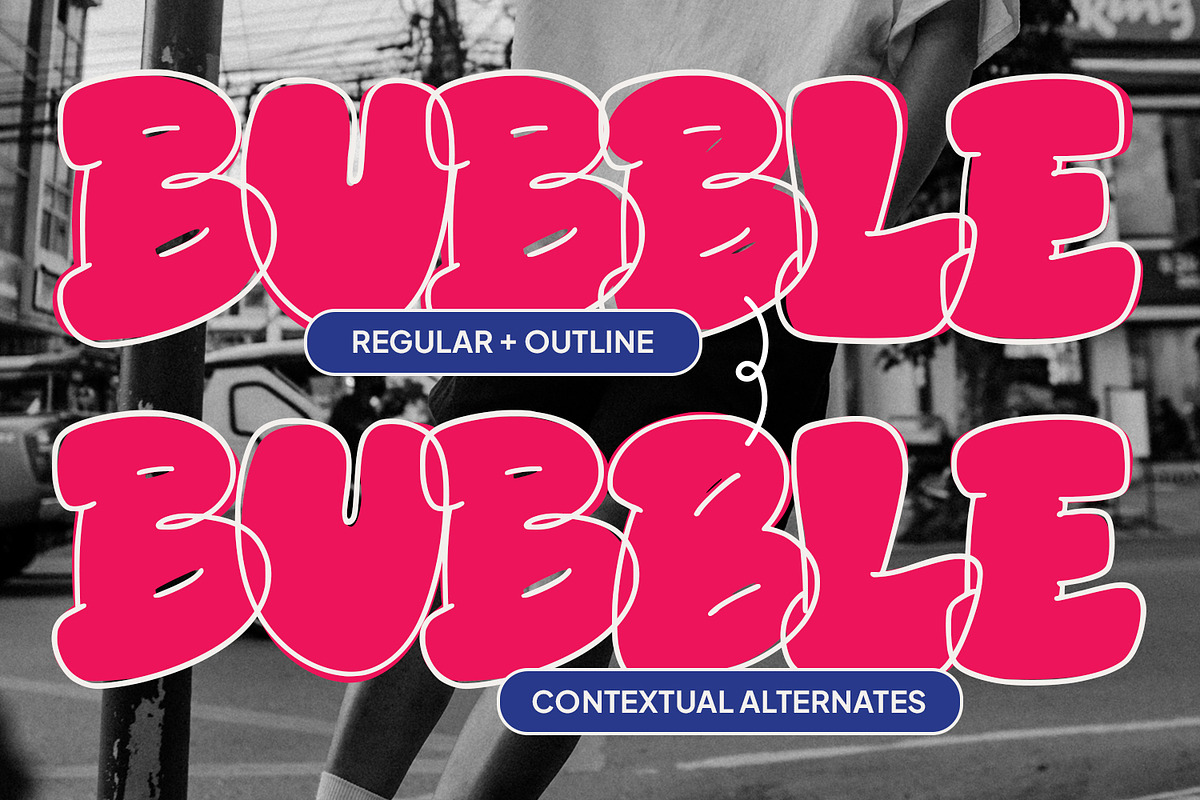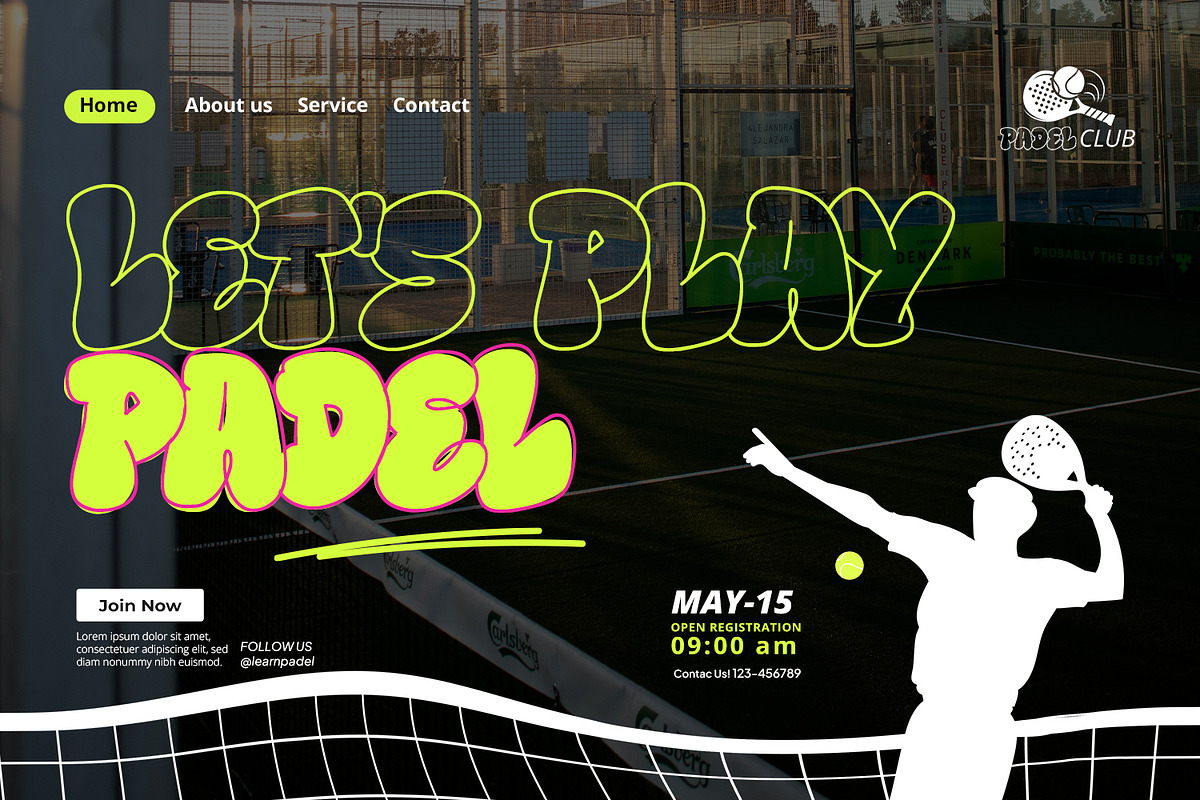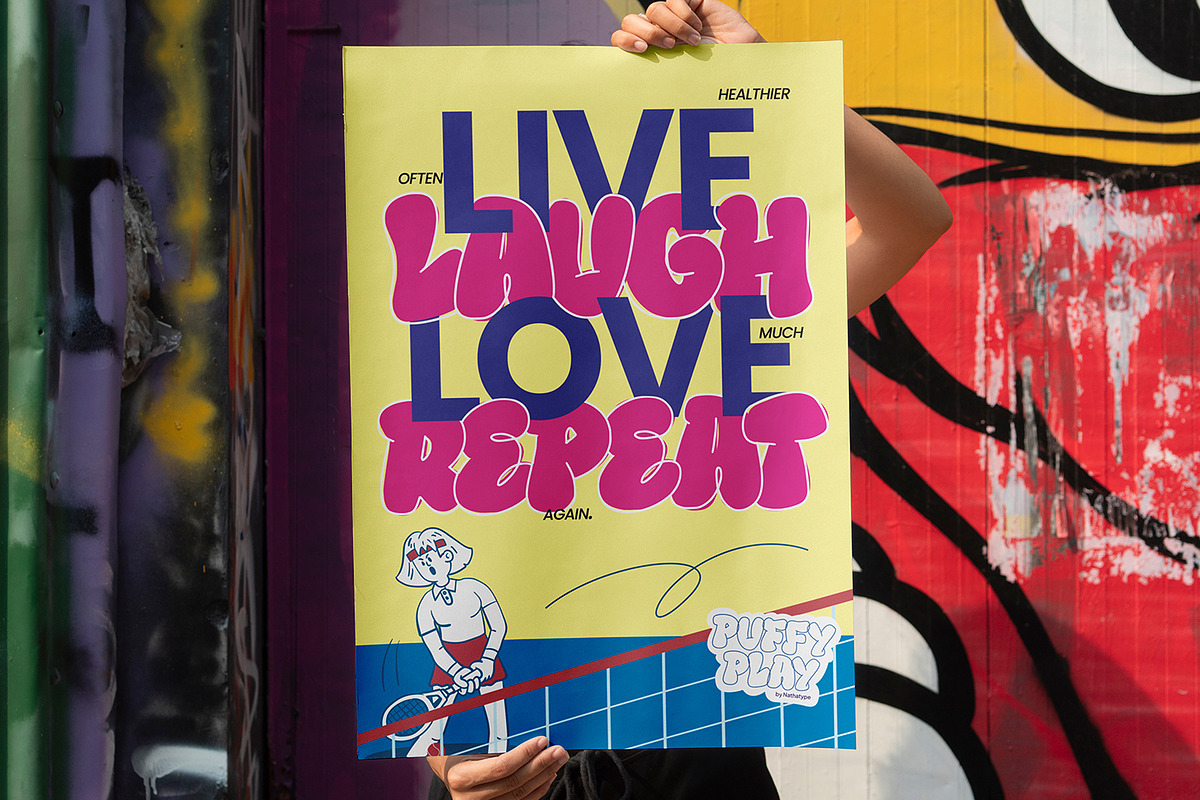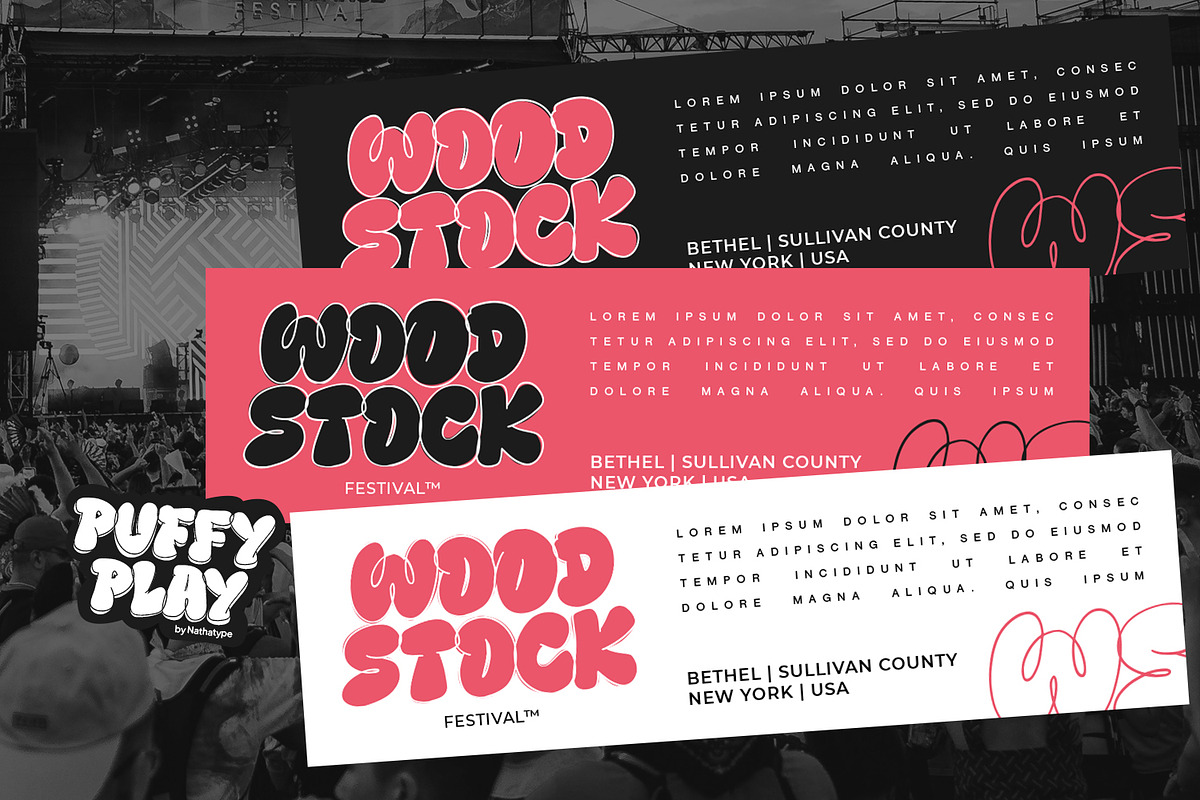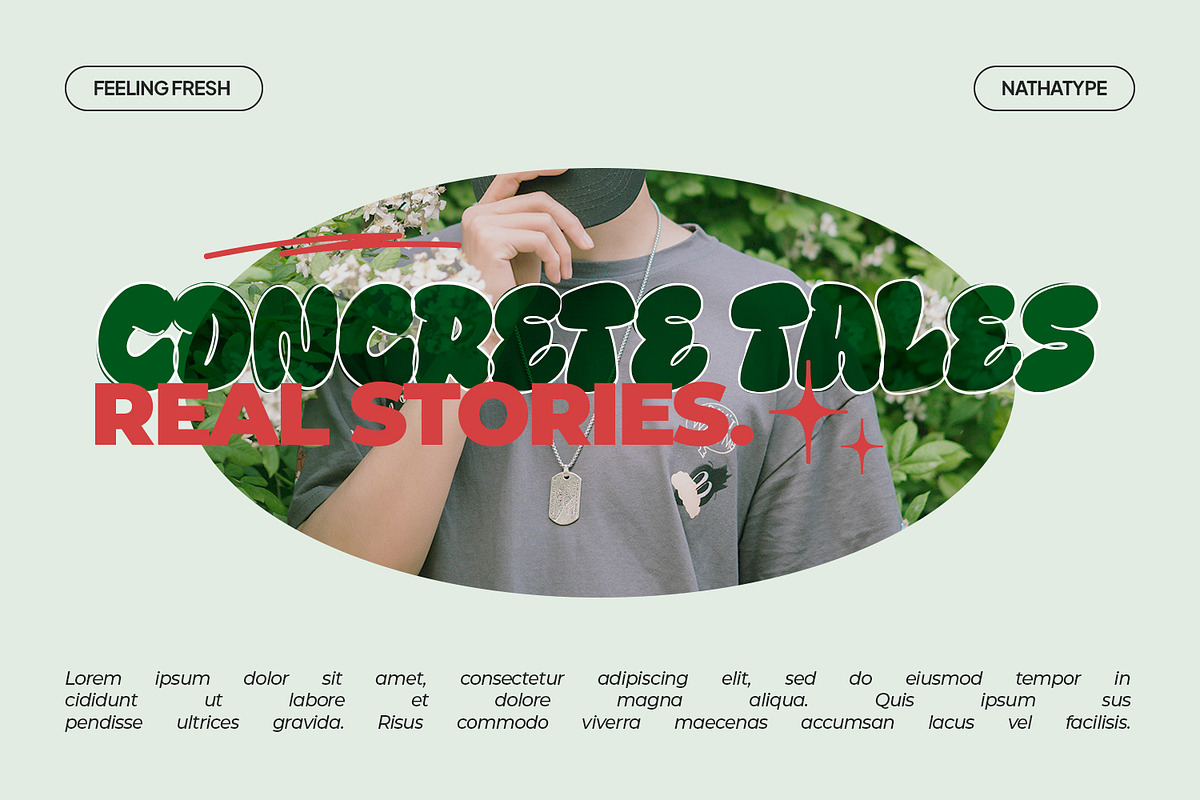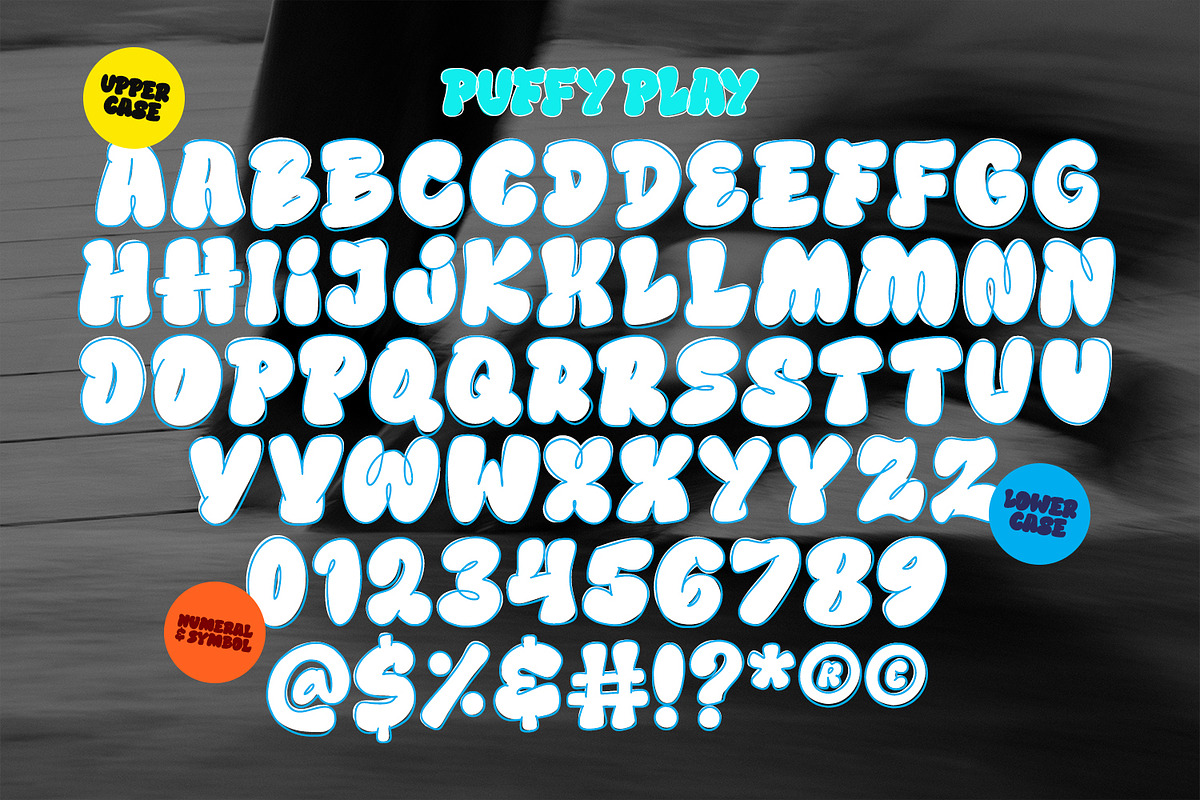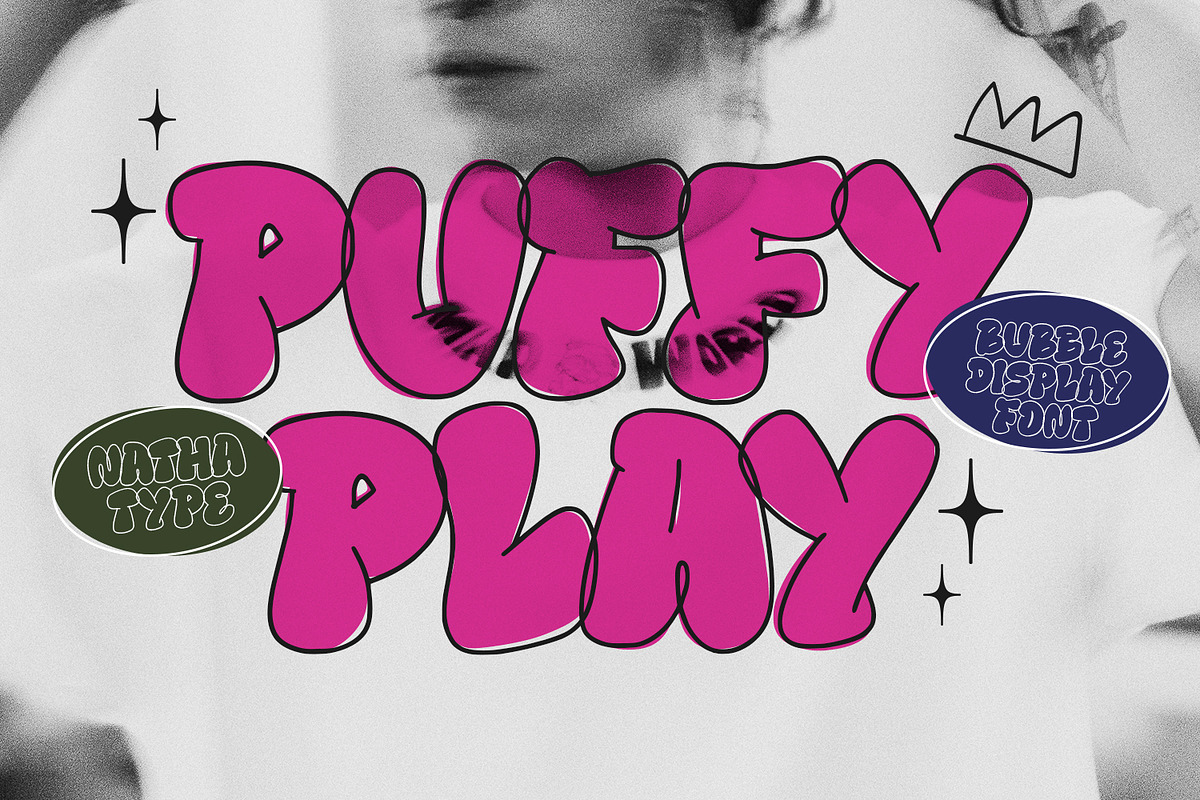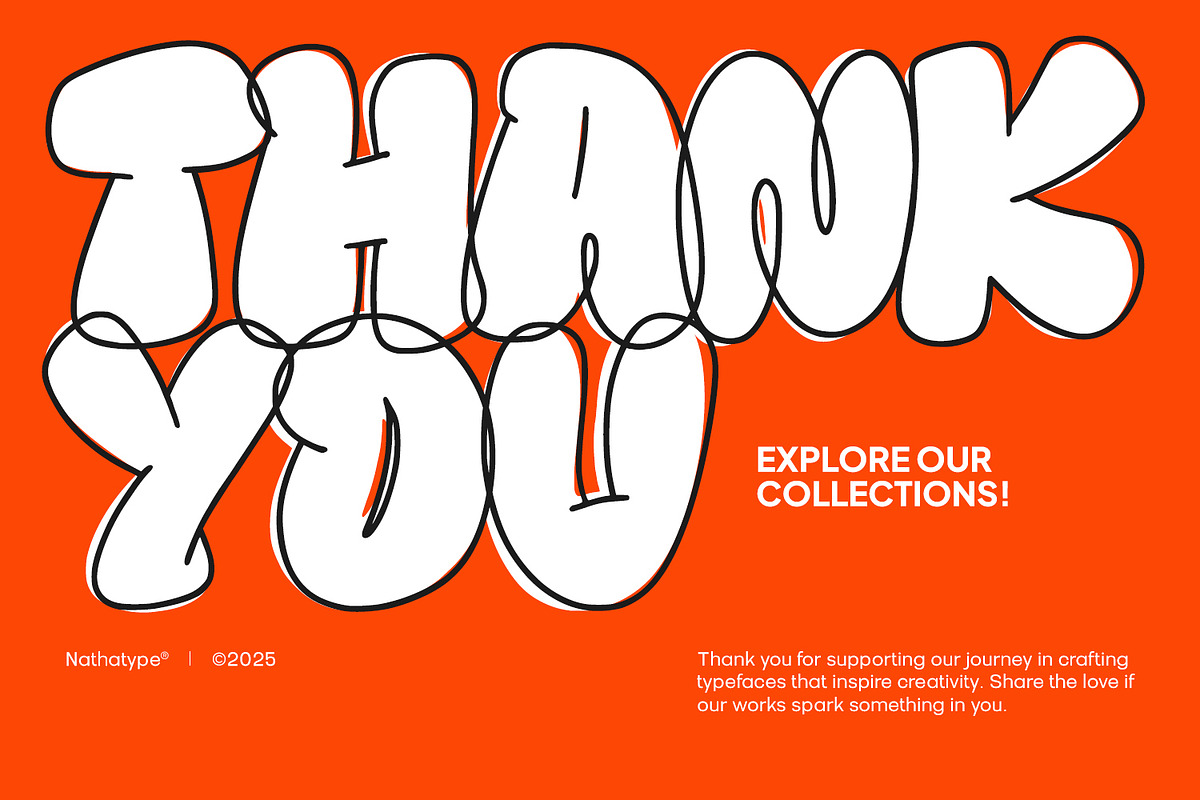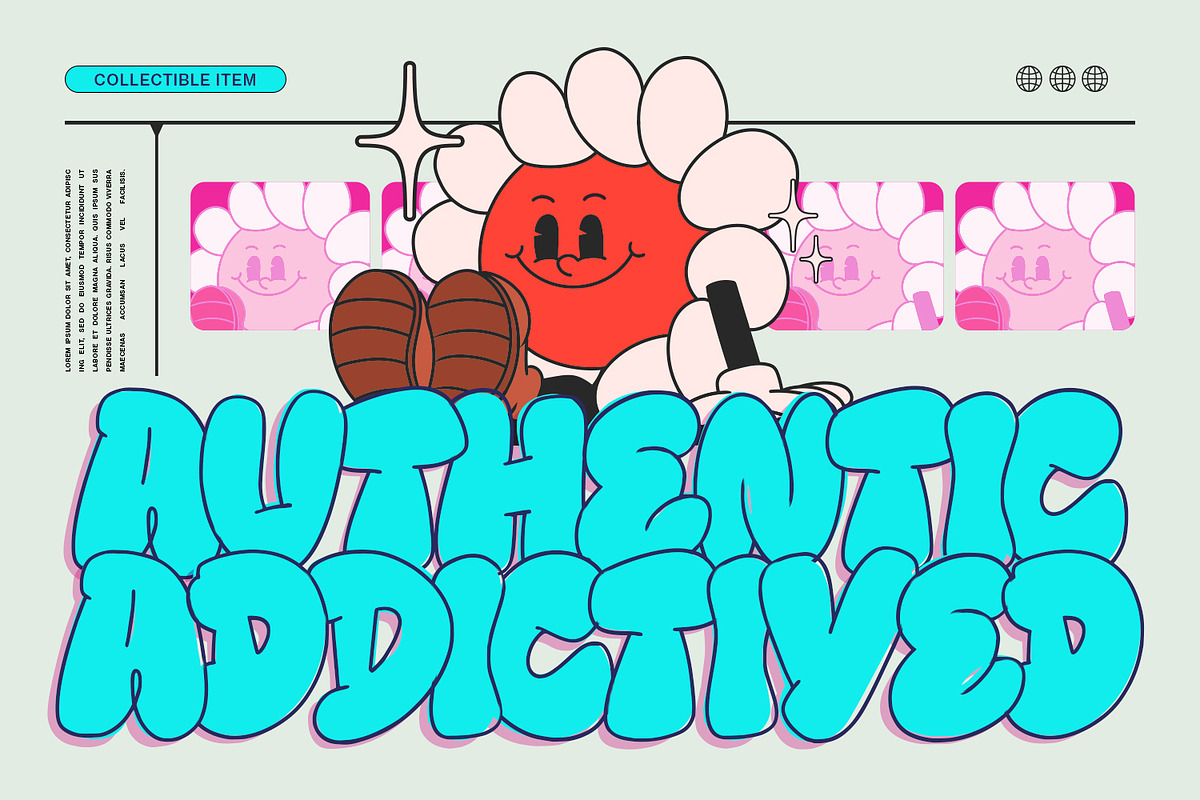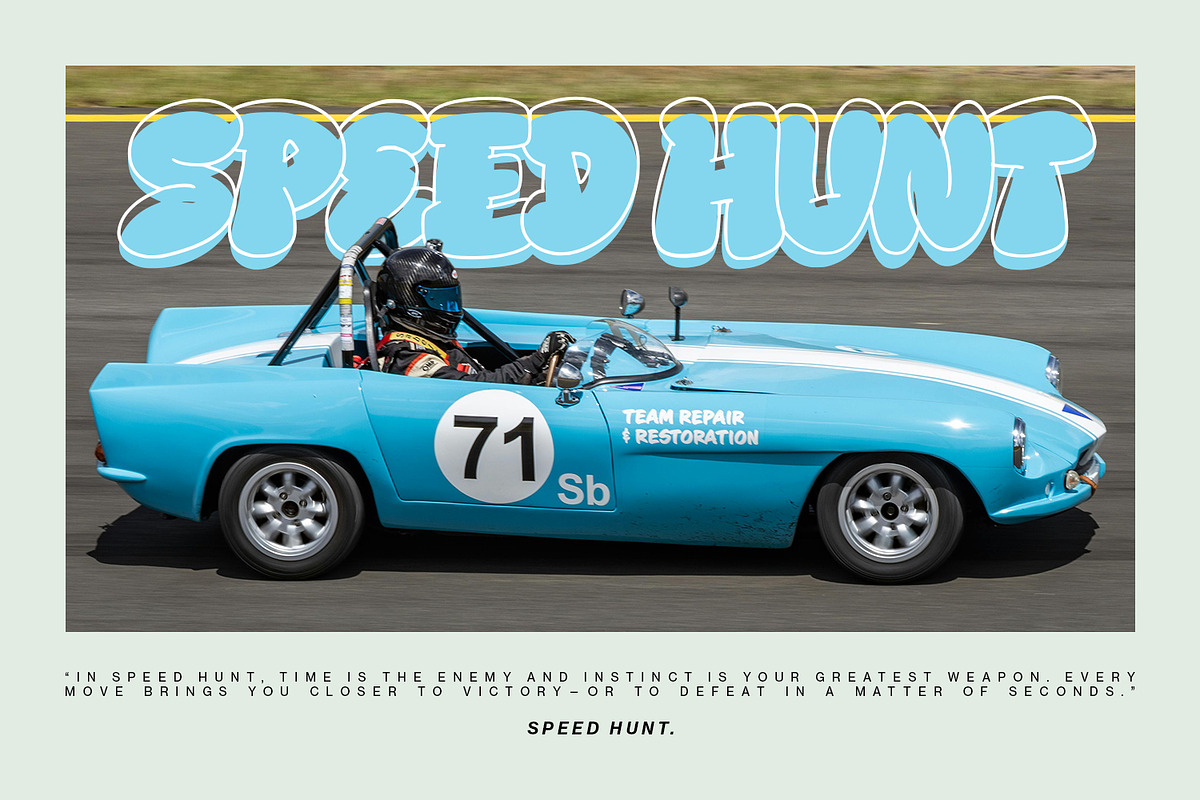
Puffy Play
Puffy Play is a fun and playful bubble display font. Created with a bold weight, rounded bubble letterforms, and low contrast, this font delivers a soft, chunky appearance that feels cheerful and approachable. The additional outlines add extra depth and dimension, making every letter pop with a lively, eye-catching style. In addition, enjoy the features here.
- Contextual Alternates
Puffy Play fits in logos, quotes, branding, posters, and many more designs. Find out more ways to use this font by taking a look at the font preview.